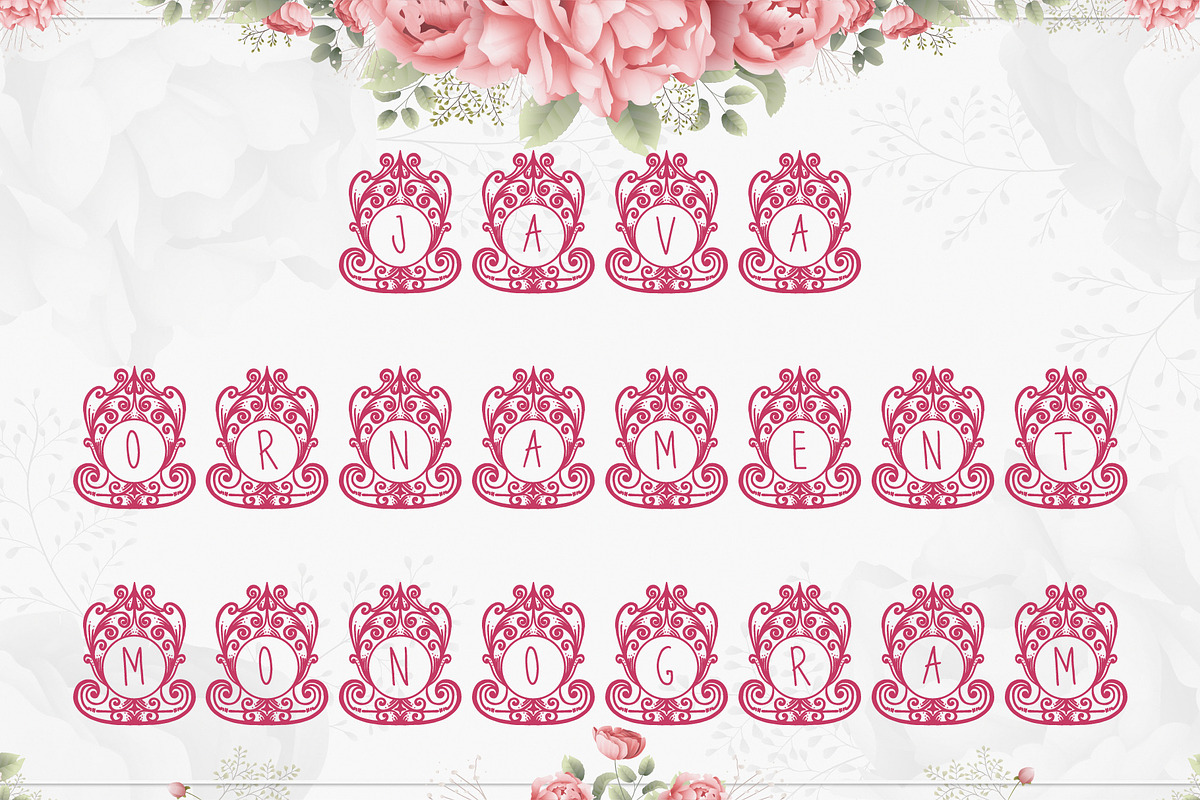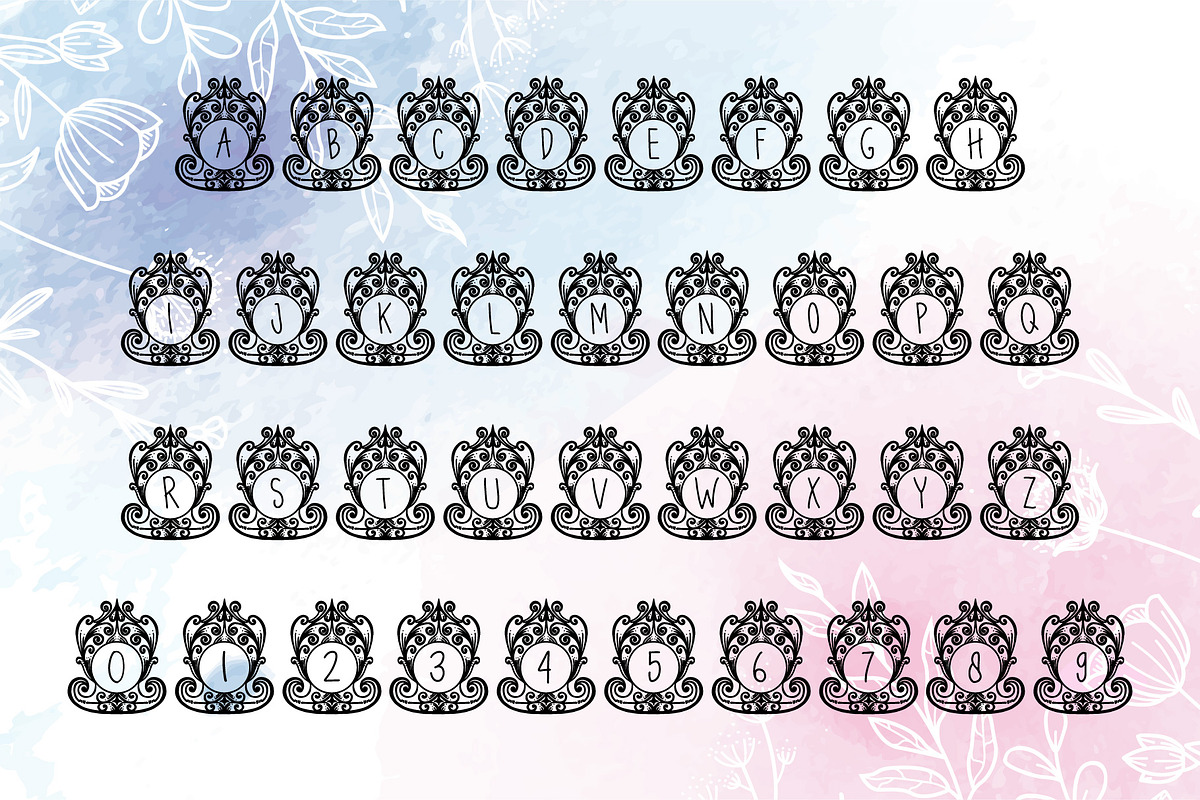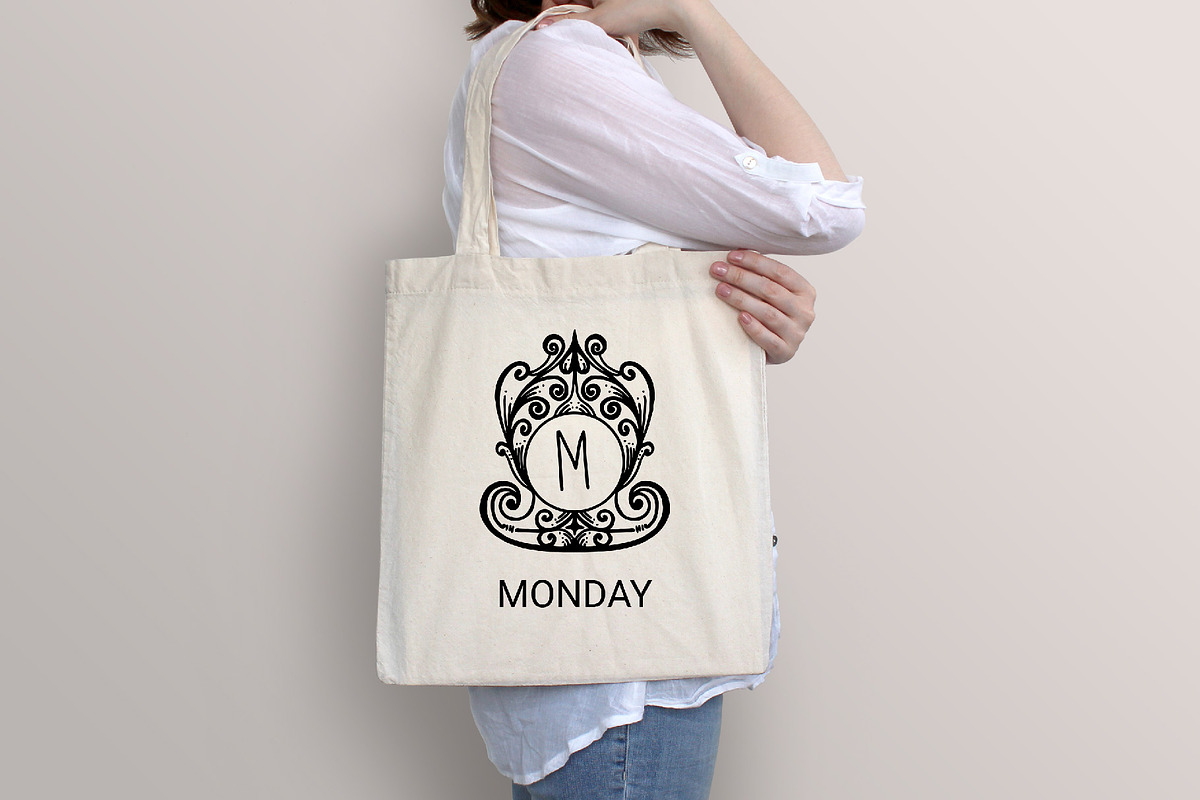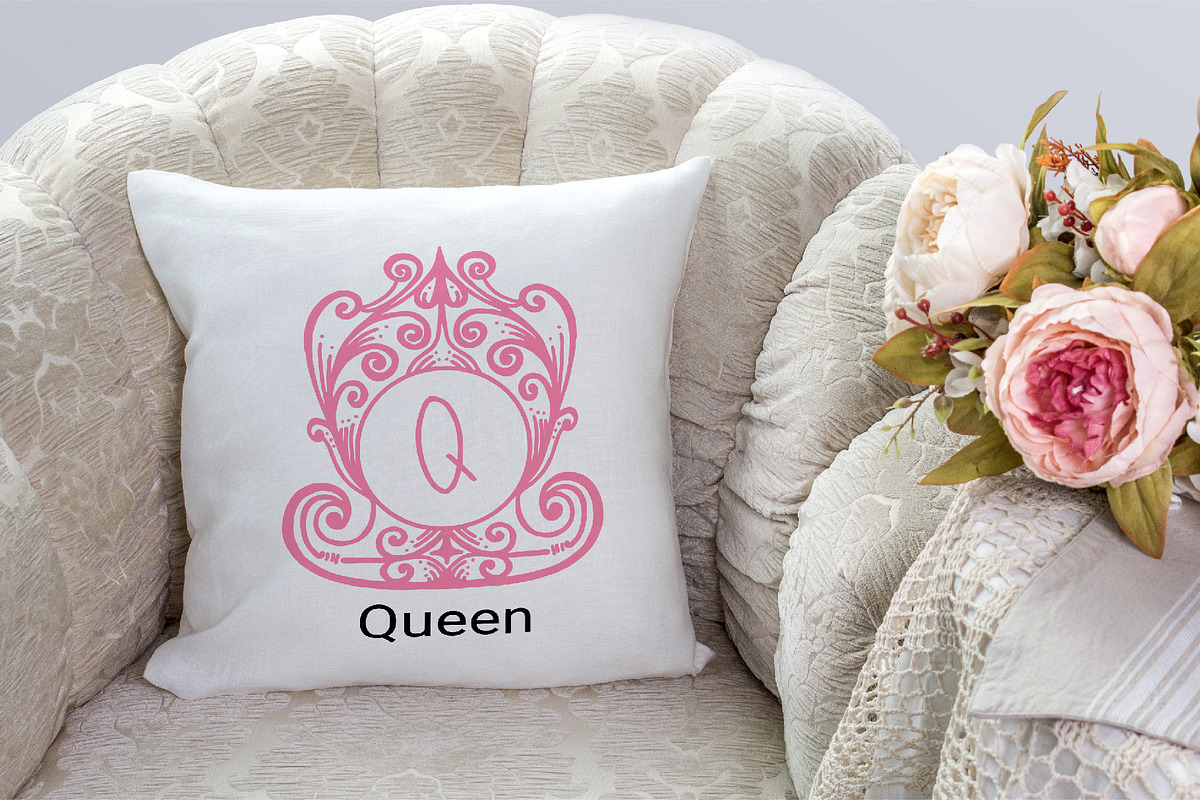
Java Ornament Monogram
This is an initial typeface that can be used for anything, one of which is for invitations or logos or can be used for anything else, depending on your taste.